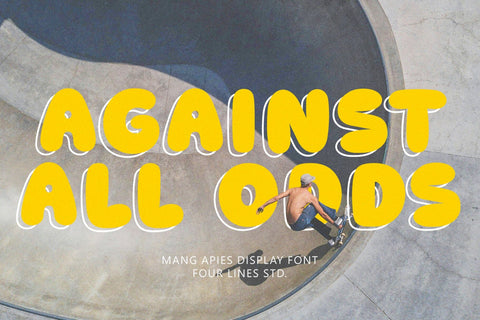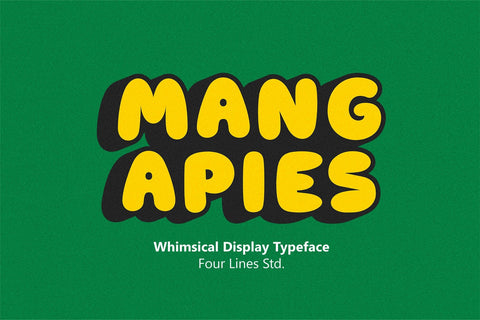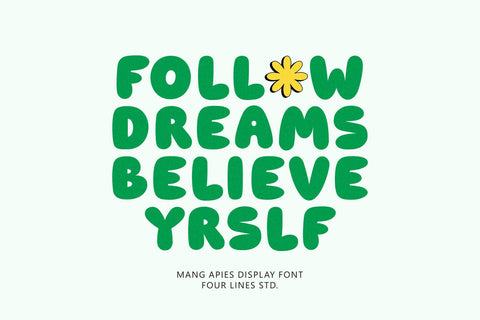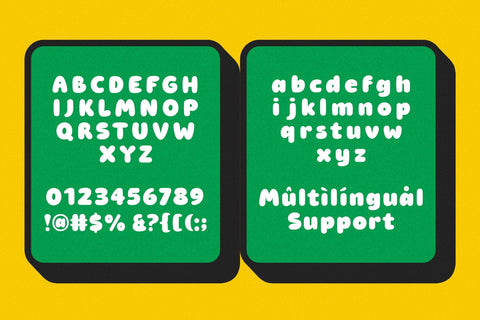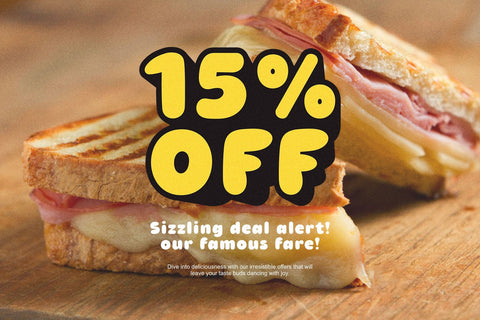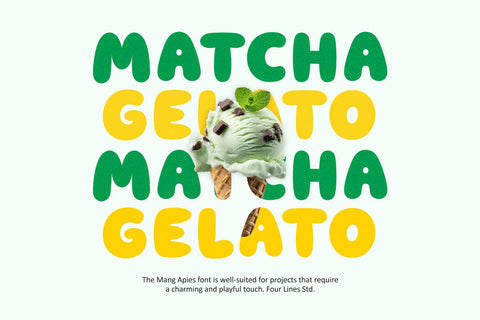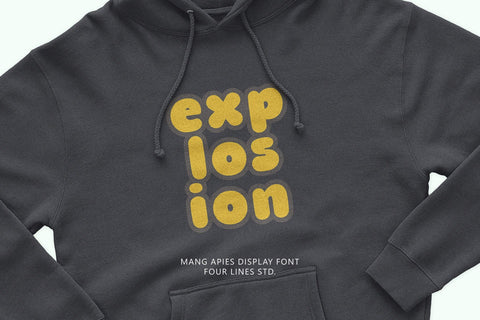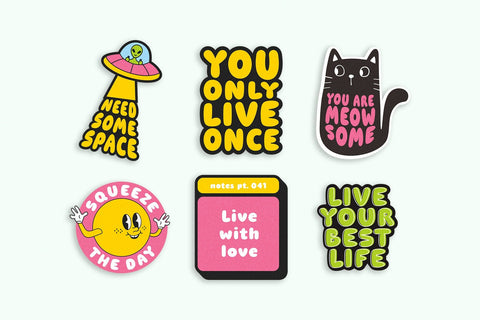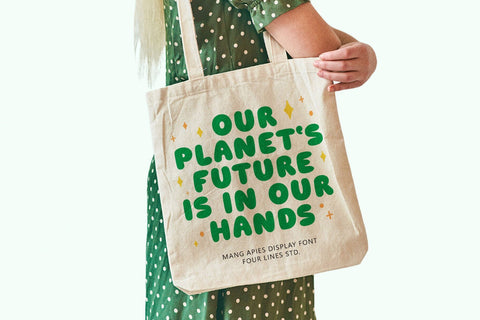
Mang Apies - Playful Display Typeface
Introducing MangApies, a display font with rounded, balloon-like curves that create a warm and playful vibe. Perfect for designers looking to inject a bit of joy and personality into their work, this font offers a friendly and modern look that suits a wide range of creative projects.